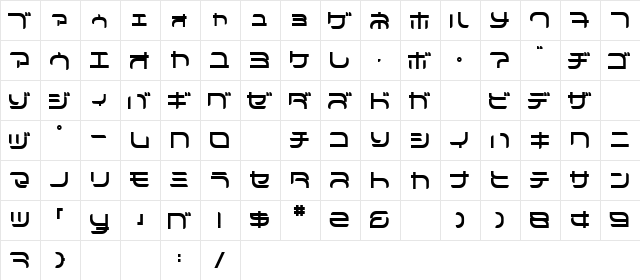
Hyperion Kana kat
Design Context for Hyperion Kana Typeface
Hyperion Kana is a composed and adaptable typeface that performs quietly and consistently across a wide range of design contexts.